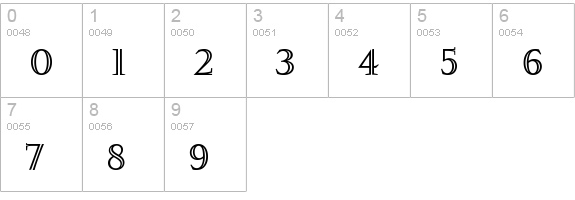
Ignatius Std Font Details
Ignatius Std font is a captivating typeface that exudes elegance and sophistication. With its sleek and modern design, this font is perfect for a wide range of creative projects, from logos and branding to invitations and headlines. This font features clean lines and sharp edges, giving it a contemporary yet timeless appeal. Its versatile nature allows it to be used in both formal and informal contexts, making it a go-to choice for designers and creatives alike. One of the most appealing aspects of Ignatius Std font is that it is available for free download at FontsMarket.com. This means that anyone can access this stunning font and use it in their designs without any cost. Whether you are a professional designer or someone looking to add a touch of style to your personal projects, Ignatius Std font is the perfect choice. The free availability of Ignatius Std font makes it accessible to a wide audience, allowing individuals and businesses to enhance their visual identities without breaking the bank. Its high-quality design and extensive character set ensure that you have all the tools you need to bring your creative visions to life. So, why wait? Head over to FontsMarket.com and download Ignatius Std font today. Elevate your design projects with this remarkable typeface and witness the impact it has on your visuals. With its free availability and unrivaled aesthetic appeal, Ignatius Std font is a must-have for any designer or creative enthusiast.